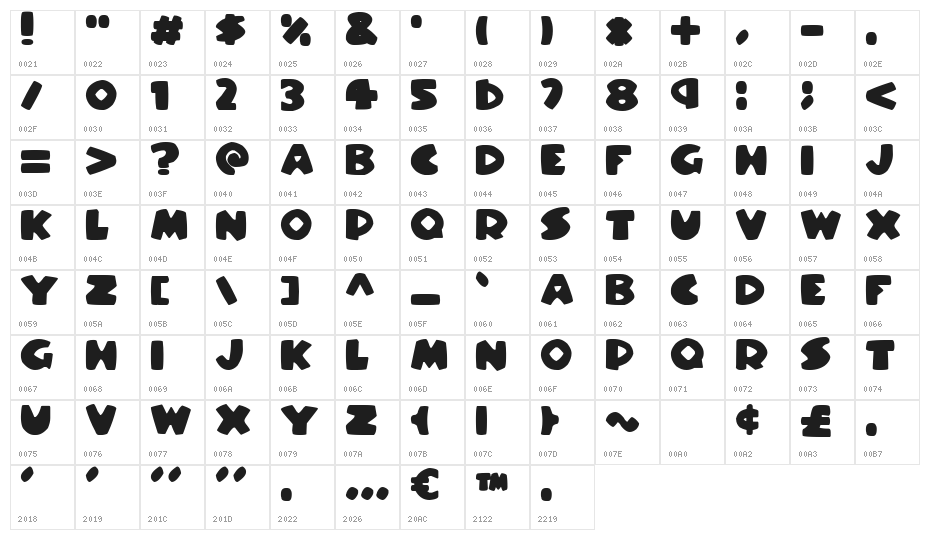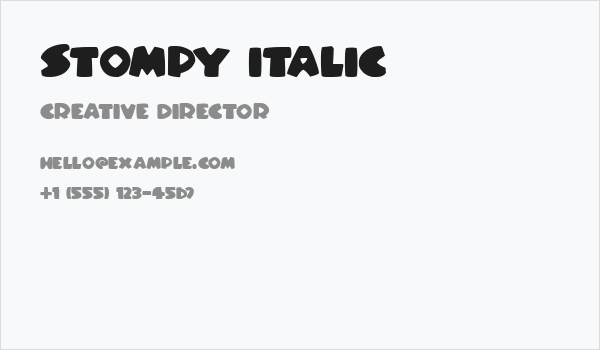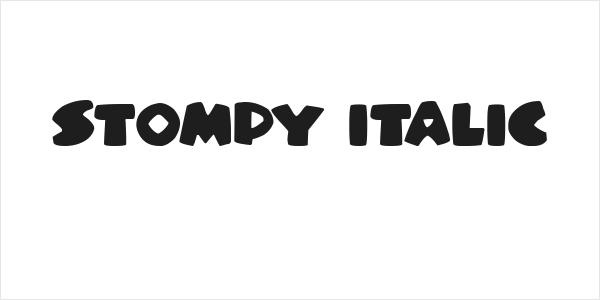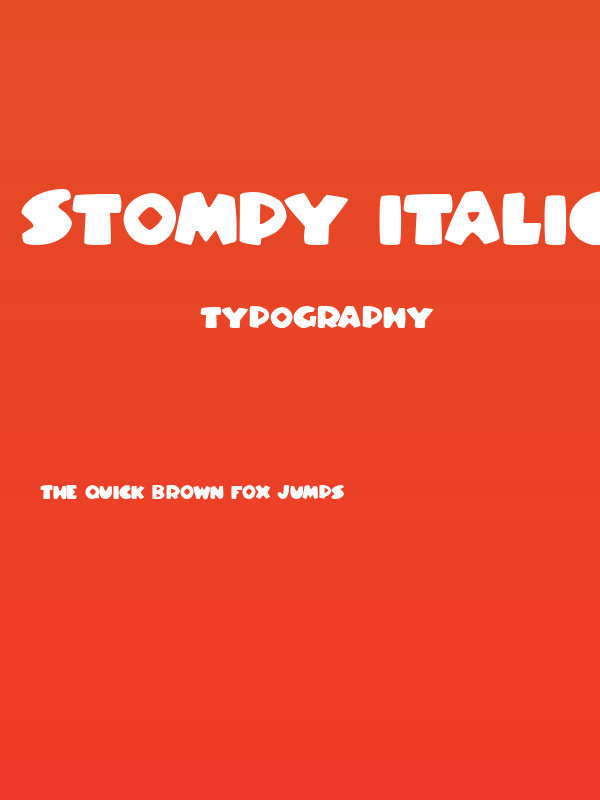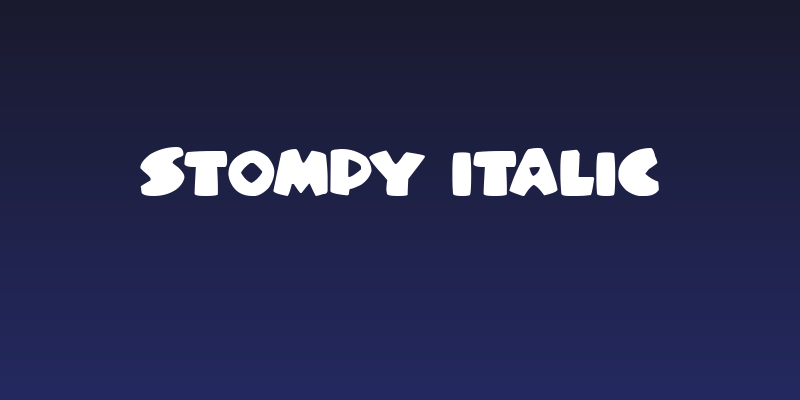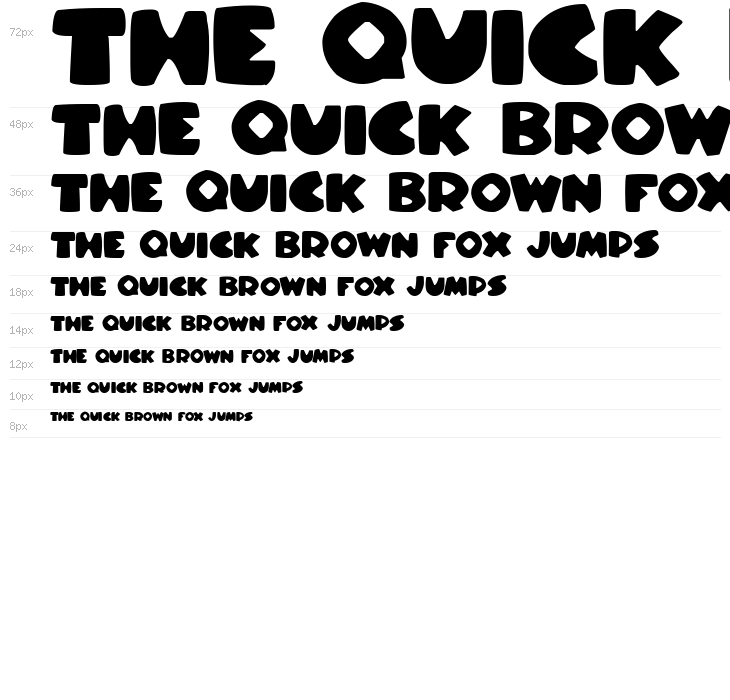
Stompy Italic Font
Stompy Italic Description
This bold and playful font features thick, rounded characters with a slightly irregular shape, giving it a whimsical and energetic appearance. The letters are tightly spaced, enhancing the boldness and making it ideal for attention-grabbing designs. The font's unique style is characterized by its heavy weight and rounded edges, which contribute to its friendly and approachable feel. The numbers and special characters maintain the same playful aesthetic, ensuring consistency across all text elements. This font is perfect for projects that require a fun and dynamic look.
| Proposed Projects | Ideal for children's books, playful branding, posters, and event invitations. |